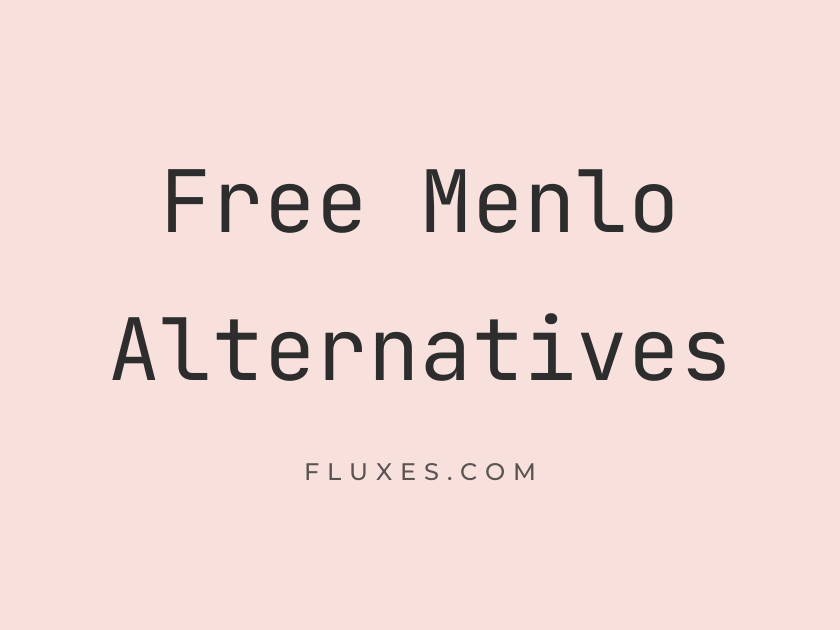
15 Best Free Fonts Alternatives to Menlo
Menlo has been the default terminal and code editor font on macOS for years, prized for its clean, slightly condensed letterforms and excellent legibility at small sizes. The trouble is that it is an Apple system font, so it is not available for embedding on websites, in design tools, or on other platforms without licensing headaches. Anyone building a code-heavy blog, a developer portfolio, a documentation site, or a syntax-highlighted snippet block needs a genuinely free monospace alternative, and Google Fonts has a strong bench of options built specifically for coding and terminal use.
1. JetBrains Mono
Built by the makers of a popular IDE, this face was designed from the ground up to reduce eye strain during long coding sessions. Letters like lowercase l, uppercase I, and the numeral 1 are distinguished at a glance, and the slightly taller x-height keeps dense code blocks from feeling cramped. It is the closest thing on this list to a purpose-built Menlo replacement for developer tools and technical blogs.
2. Fira Code
Fira Code
Fira Code took the already solid Fira Mono and added programming ligatures, so operators like => and !== render as single connected glyphs rather than separate characters. That feature alone has made it a favorite in code editor screenshots and tutorial sites. It is worth noting the ligatures are a rendering feature of code editors rather than something a website will typically reproduce, so on a web page it behaves as a clean, no-nonsense monospace.
3. Source Code Pro
Source Code Pro
Adobe’s contribution to the monospace world reads a touch more refined than most terminal fonts, with slightly narrower proportions and careful spacing that keep long lines of code from feeling heavy. It pairs naturally with Source Sans 3 for sites that want a cohesive type system across prose and code samples.
4. IBM Plex Mono
Part of IBM’s expansive Plex superfamily, this one carries a distinct engineering character, with slightly squared curves and a confident, technical feel that suits developer documentation and product changelogs. It shares DNA with Plex Sans and Plex Serif, so a whole site can be typeset in one coherent family. At larger display sizes it has enough personality to work as a heading font too, not just body code.
5. Space Mono
Space Mono leans stylistic rather than neutral, with quirky, slightly retro letterforms that recall old terminal displays and vintage electronics manuals. It is a poor choice for dense paragraphs of body code since the personality becomes distracting at small sizes, but for headlines, badges, or a hero section on a developer portfolio it adds character that plainer monospace fonts lack.
6. Roboto Mono
As the monospace companion to Roboto, this font is an easy pick for anyone already using Google’s flagship sans across a product interface. It is unfussy and evenly spaced, doing its job without drawing attention, which makes it dependable for inline code snippets sitting inside regular text.
7. Ubuntu Mono
Ubuntu Mono
Carrying the same humanist warmth as the rest of the Ubuntu type family, this one feels a little friendlier than most terminal fonts, with rounded terminals that soften the usual mechanical rigidity of monospace type. It suits open-source project pages and tutorial content aimed at beginners rather than dense enterprise dashboards.
8. Inconsolata
Inconsolata
One of the earliest monospace fonts designed specifically for code on screen, Inconsolata remains a benchmark for clarity nearly two decades later. Its narrow width fits more characters per line than many rivals, which is genuinely useful for sites displaying wide code blocks without horizontal scrolling.
9. Cousine
Cousine
Cousine was designed as a metrically compatible alternative to a well-known commercial coding font, which means it slots into layouts expecting specific character widths without reflow surprises. It reads plainly and clearly at small sizes, making it a safe, low-drama choice for technical documentation.
10. PT Mono
PT Mono
Originating from a Russian type foundry’s public types initiative, PT Mono has slightly wider letterforms than most on this list, giving it a sturdy, planted feel on the page. It works well for code comments and inline snippets where extra breathing room helps readability rather than raw density.
When pairing with body text, matching a monospace to its companion sans, such as Roboto Mono with Roboto or IBM Plex Mono with Plex Sans, keeps a documentation site feeling like one coherent system.
Menlo may remain the default in Terminal and Xcode, but none of these free alternatives require a Mac, a license, or a workaround to use across a website, app, or design file. Any one of them will carry the same functional clarity Menlo is known for, while giving a project room to add its own technical personality.